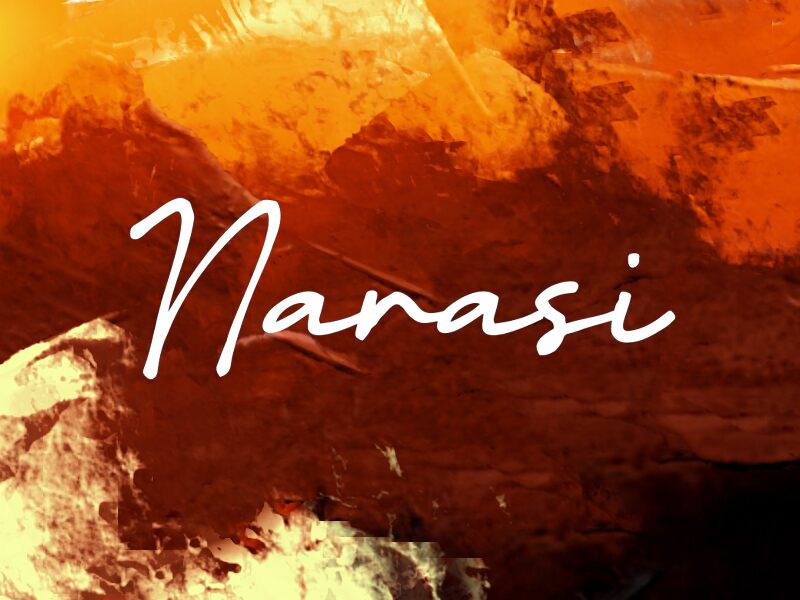
n Narasi font by wep is a delicate handwritten font whose dynamic and organic style maintains a natural look. This free font captures the relaxed and personal side of human expression making it suitable for numerous non-commercial projects. The letters vary in size as the characters were inspired by modern calligraphy. Matching beautifully with each other, they allow you to instantly enjoy a professional design.
A handwritten font can always be the versatile addition missing, and n Narasi is no different. You can use this font for both printed projects and digital ones as it wonderfully decorates a cookbook cover design, a printed branding design, or magazine pages.
For interactive projects, you can use it for online posts and ads, as well as blogs, and social media platforms.
Narasi is a stunning free font that captures the essence of elegance and modernity. Ideal for both personal and commercial projects, this versatile typeface is perfect for creating eye-catching designs, whether for branding, invitations, or social media graphics.
With its unique character and expressive style, Narasi adds a distinctive touch to any text, making your projects stand out. The font is easy to read, ensuring that your message is communicated clearly and effectively.
Discover the beauty of Narasi and elevate your design projects with this exceptional free font.